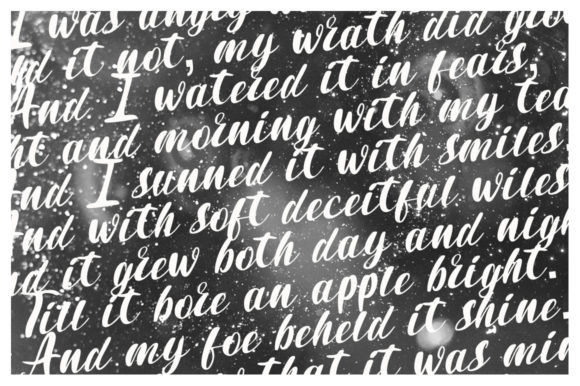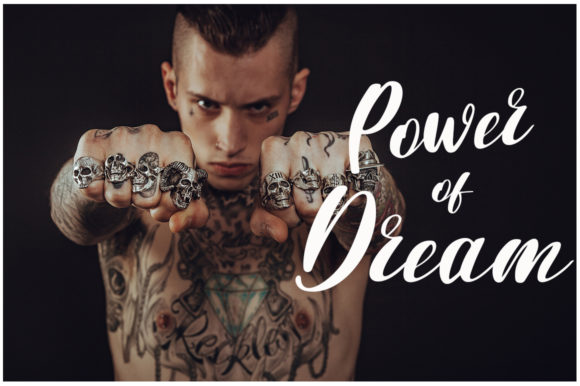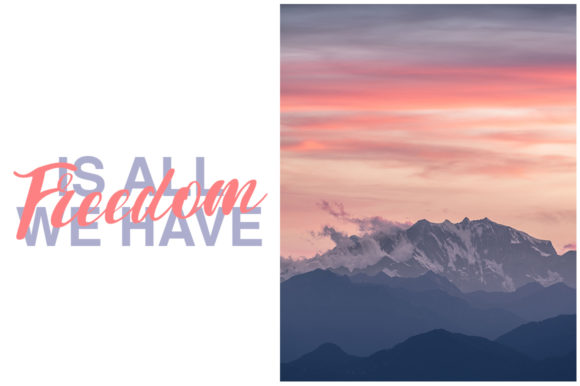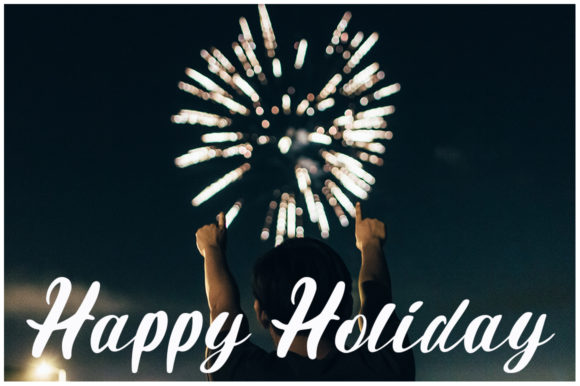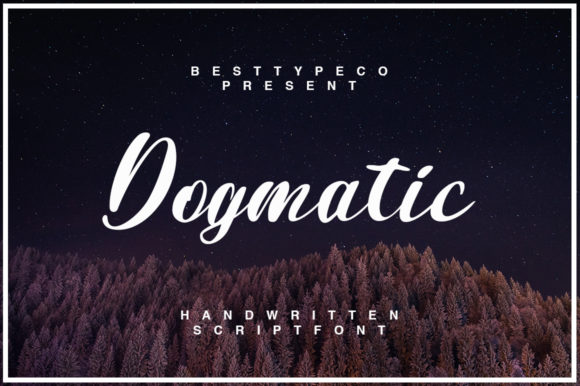
Introducing Dogmatic Font: The Ultimate Handwritten Font for Creative Projects
Are you tired of using the same old fonts for your creative projects? Look no further than Dogmatic Font, a stunning handwritten font that is sure to capture your heart. With its flowing and beautiful style, Dogmatic Font is the perfect choice for designers and crafters who want to add a touch of elegance and sophistication to their work.
What Makes Dogmatic Font So Special?
Dogmatic Font is a versatile and eye-catching font that is perfect for a wide range of creative projects. Its unique and elegant style makes it ideal for use in wedding invitations, stationery art, social media posts, and much more. Whether you’re a designer looking to create stunning visual content or a crafter looking to add a personal touch to your handmade projects, Dogmatic Font is the perfect choice.
The Benefits of Using Dogmatic Font
So why choose Dogmatic Font over other fonts? Here are just a few benefits of using this amazing font:
• Versatility: Dogmatic Font is incredibly versatile, making it perfect for use in a wide range of creative projects.
• Elegance: With its flowing and beautiful style, Dogmatic Font adds a touch of elegance and sophistication to any project.
• Easy to Read: Despite its elegant style, Dogmatic Font is easy to read, making it perfect for use in body text as well as headings.
• Unique: Dogmatic Font is a unique and eye-catching font that is sure to set your project apart from the crowd.
How to Use Dogmatic Font in Your Creative Projects
So how can you use Dogmatic Font in your creative projects? Here are a few ideas to get you started:
• Wedding Invitations: Use Dogmatic Font to create stunning wedding invitations that will set the tone for the big day.
• Stationery Art: Add a personal touch to your stationery art with Dogmatic Font, perfect for use in greeting cards, journals, and more.
• Social Media Posts: Use Dogmatic Font to create eye-catching social media posts that will grab the attention of your followers.
• Branding: Use Dogmatic Font to create a unique and memorable brand identity for your business.
Tips for Getting the Most Out of Dogmatic Font
Here are a few tips for getting the most out of Dogmatic Font:
• Experiment with Different Sizes: Dogmatic Font looks great in a variety of sizes, so don’t be afraid to experiment to find the perfect size for your project.
• Pair with Other Fonts: Dogmatic Font pairs well with a variety of other fonts, so try pairing it with a bold font for headings or a clean font for body text.
• Use in Combination with Images: Dogmatic Font looks great in combination with images, so try using it to add a personal touch to your photos and illustrations.
Font Name Dogmatic Font
Author BennyDesigns
In conclusion, Dogmatic Font is a beautiful and versatile handwritten font that is perfect for designers and crafters who want to add a touch of elegance and sophistication to their creative projects. With its flowing and beautiful style, Dogmatic Font is sure to capture your heart and become a go-to font in your creative toolkit. So why wait? Download Dogmatic Font today and start creating stunning visual content that will leave a lasting impression.